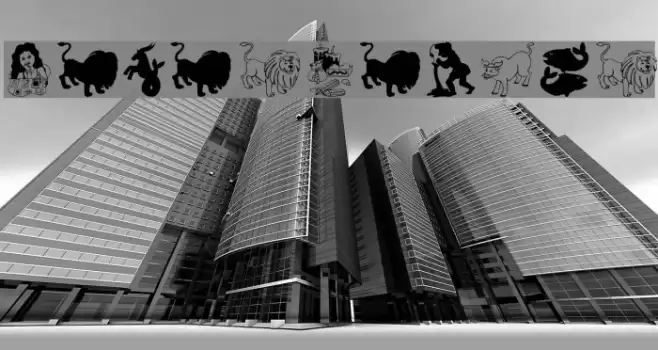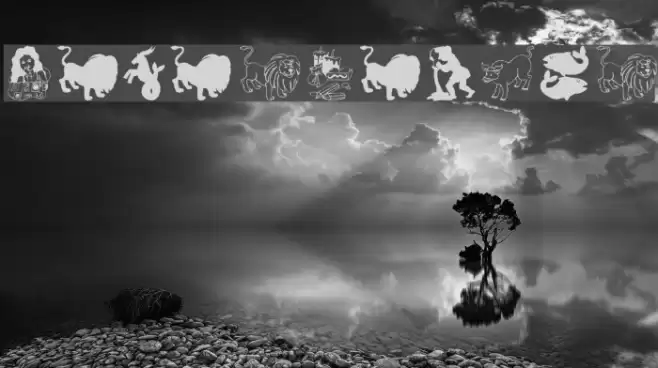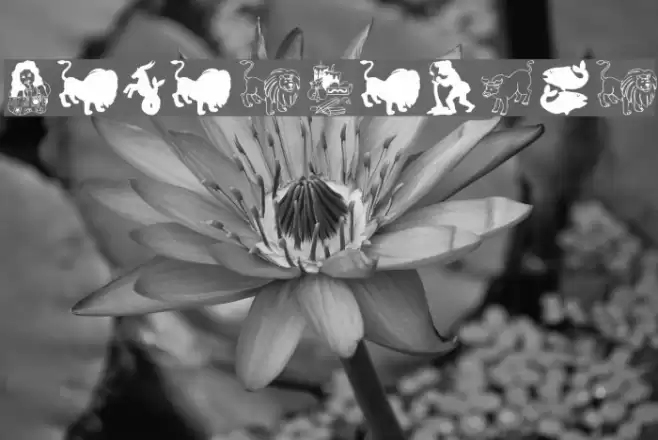
HorosCopies Font
HorosCopies Description
A decorative display font featuring hand-drawn illustrations of zodiac signs and horoscope symbols, each glyph represented by a unique cartoon-style drawing. The characters are whimsical and playful, with both outlined and filled versions, and include a mix of circular badge-like forms and standalone figures.
Whimsical zodiac-themed display font with illustrated glyphs from Uncategorized fonts.
- Proposed Projects: Astrology websites, horoscope columns, themed party invitations, children's books, posters, and greeting cards.
- Overall Style: Decorative, Playful, Thematic
- Use Case: Logos, Headlines, Posters, Themed Graphics